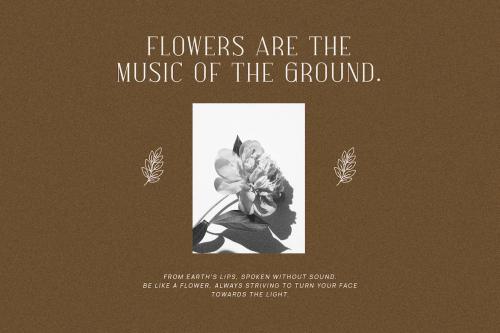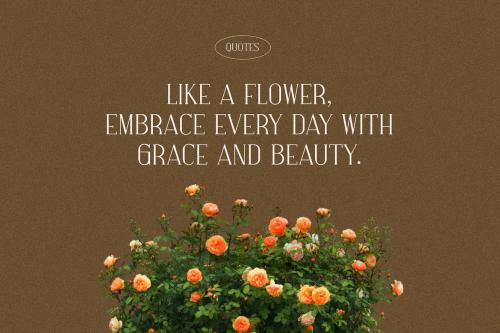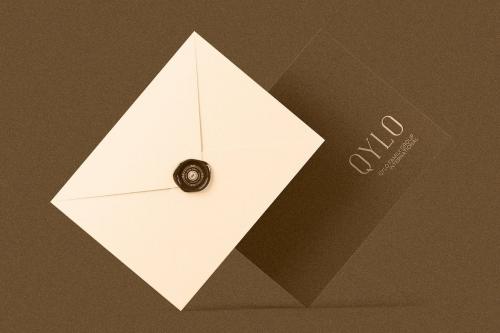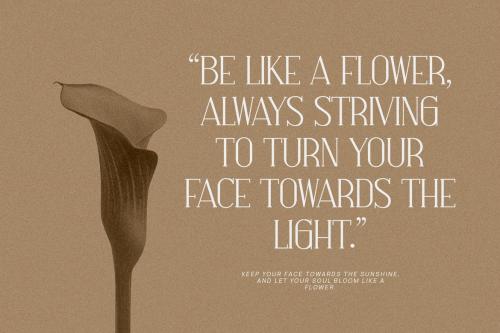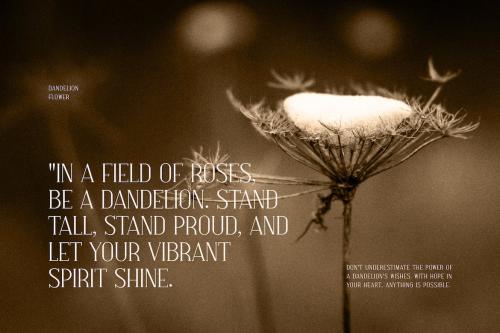
霍斯林现代衬线字体类型面
Hosline Modern Serif Font Typeface
Hosline Modern Serif Font Typeface inspired by the famous minimalist logo perfect for the purposes of designing templates, brochures, videos, advertising branding, logos, invitation, layout design, elegant crafting, beauty design and other